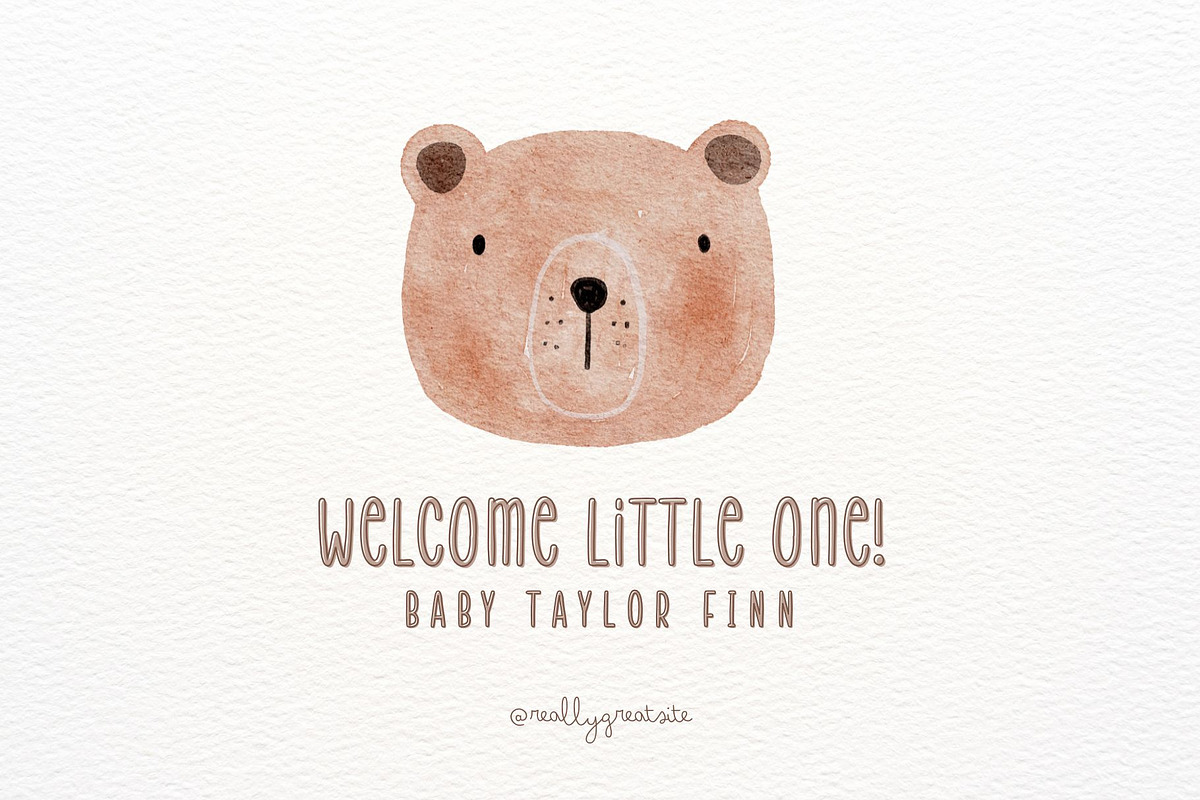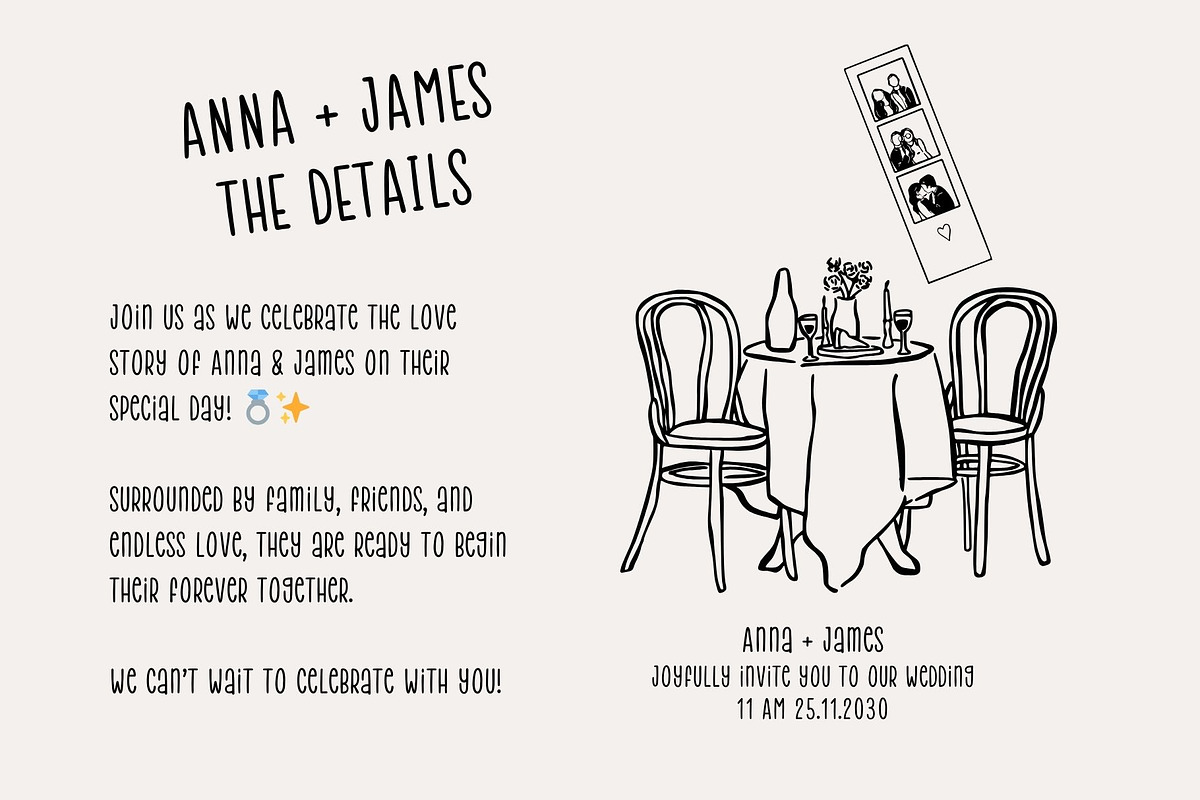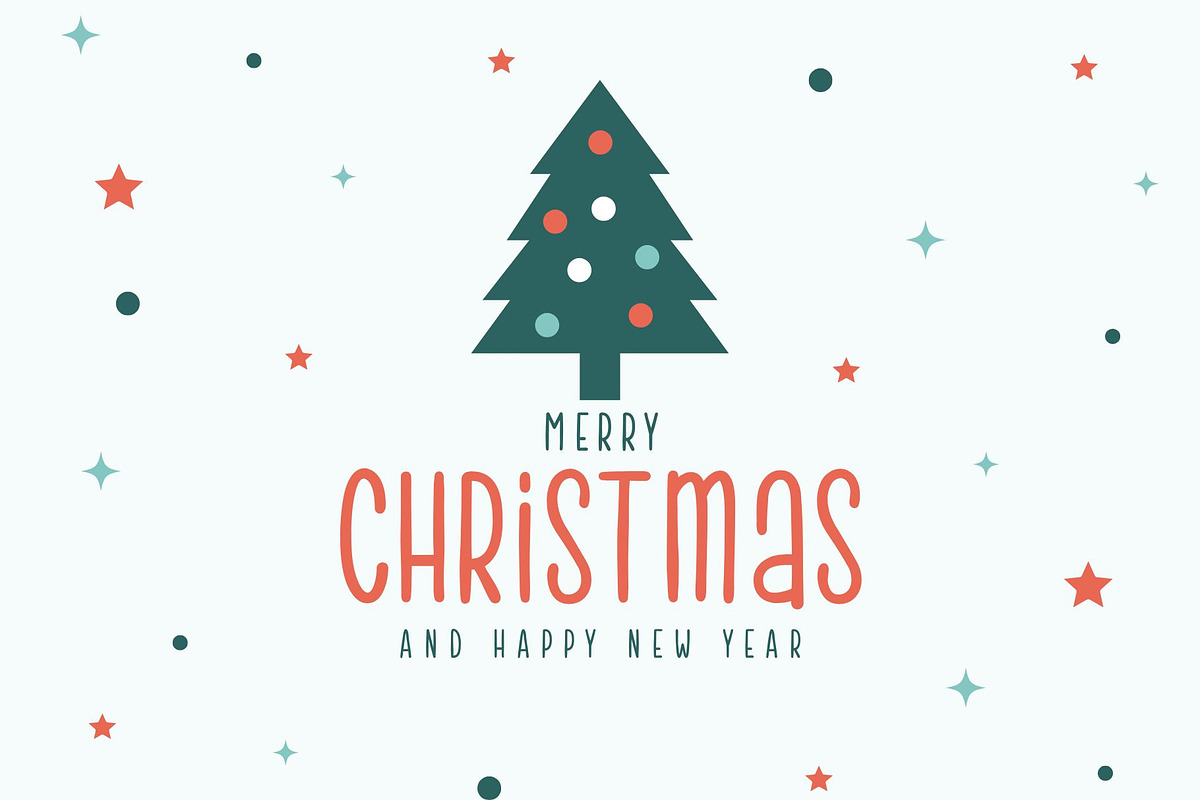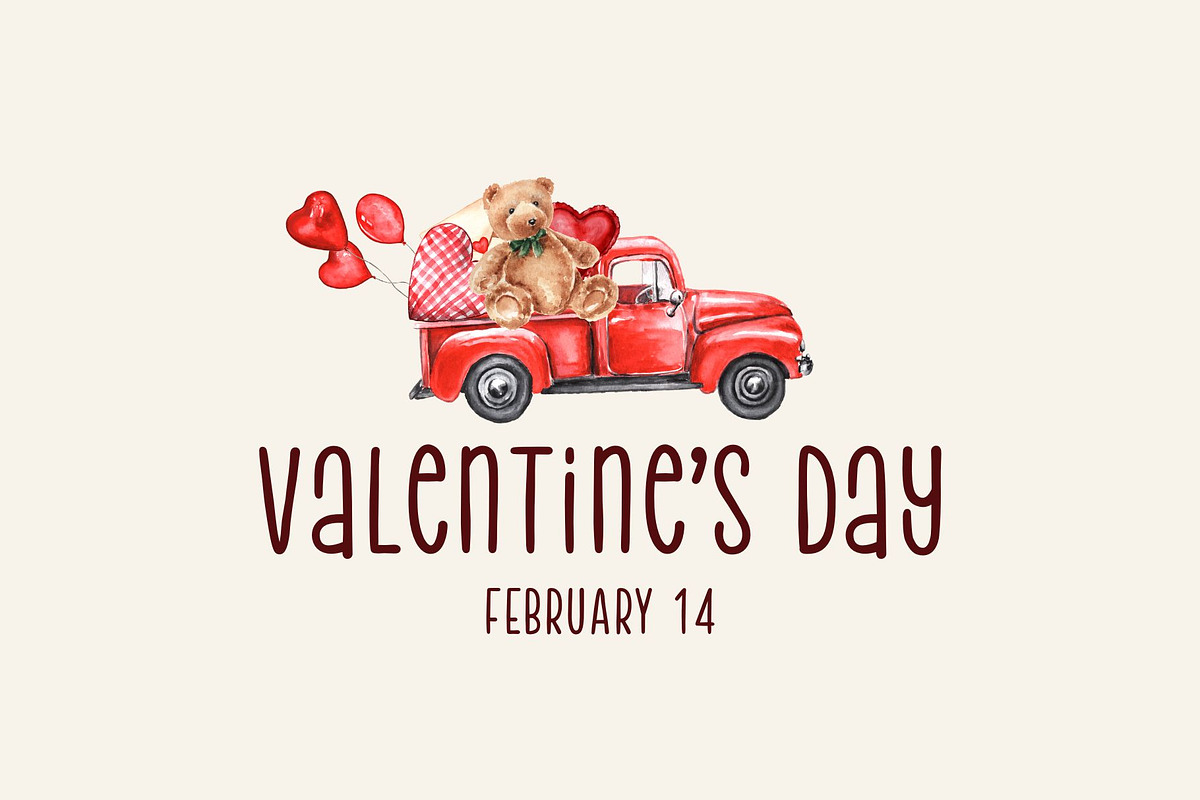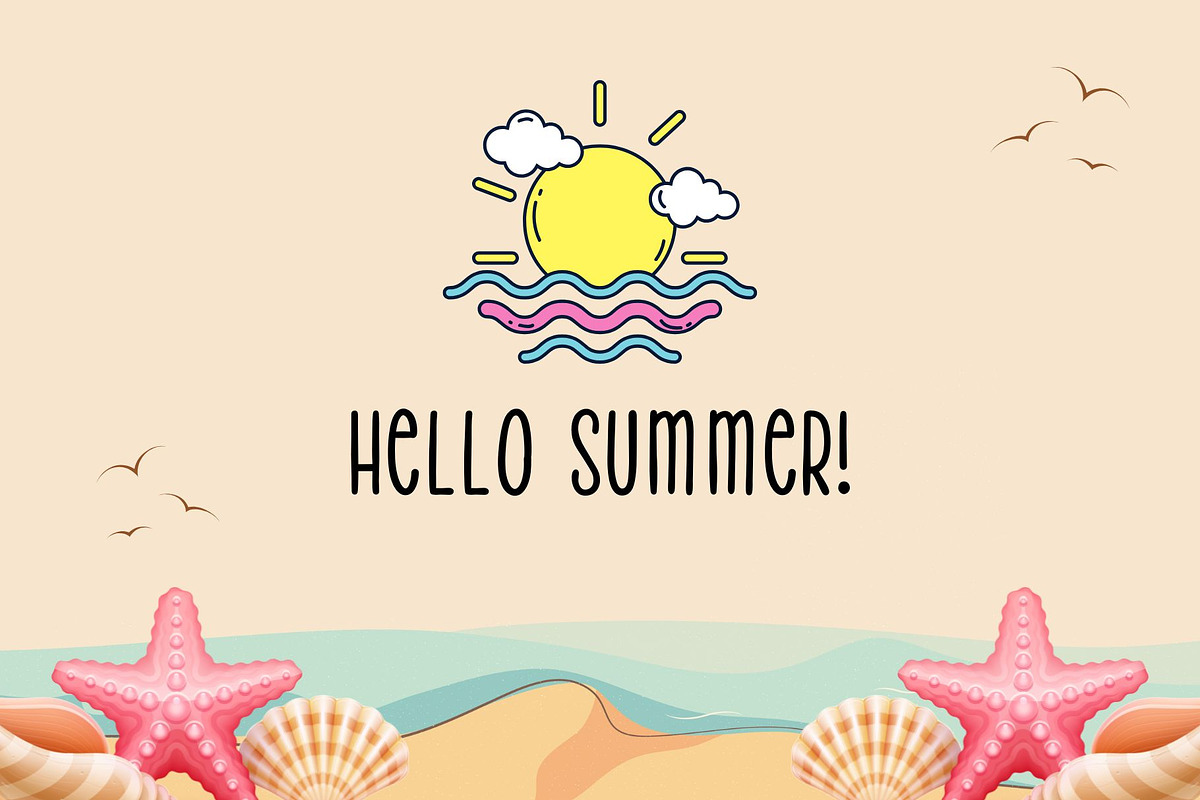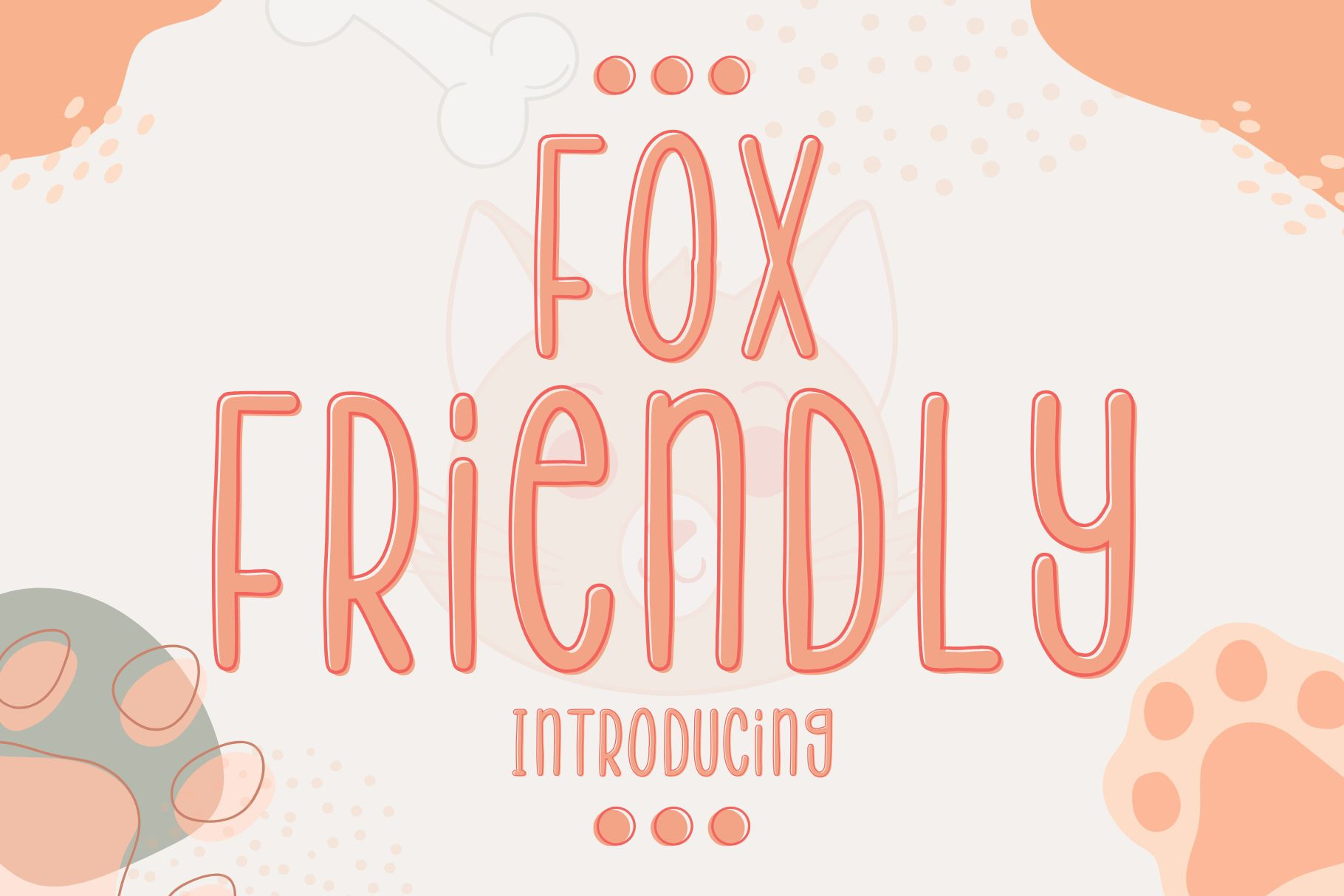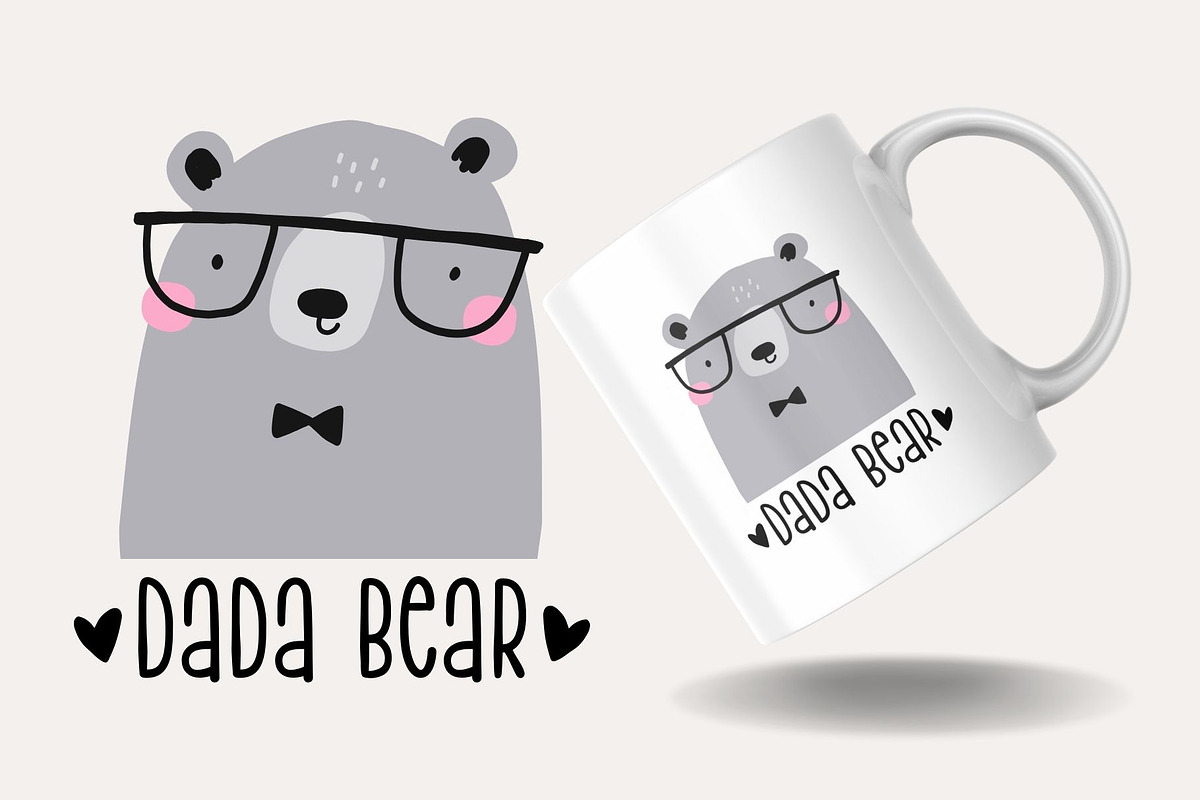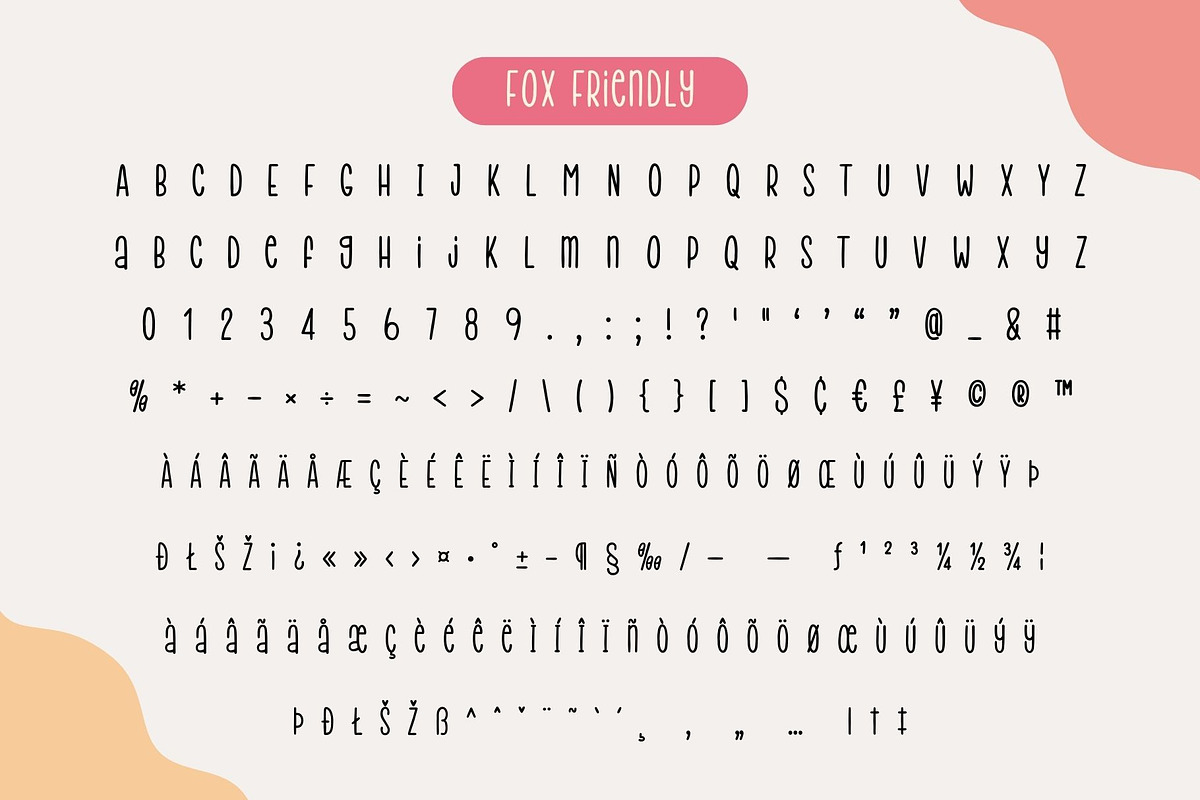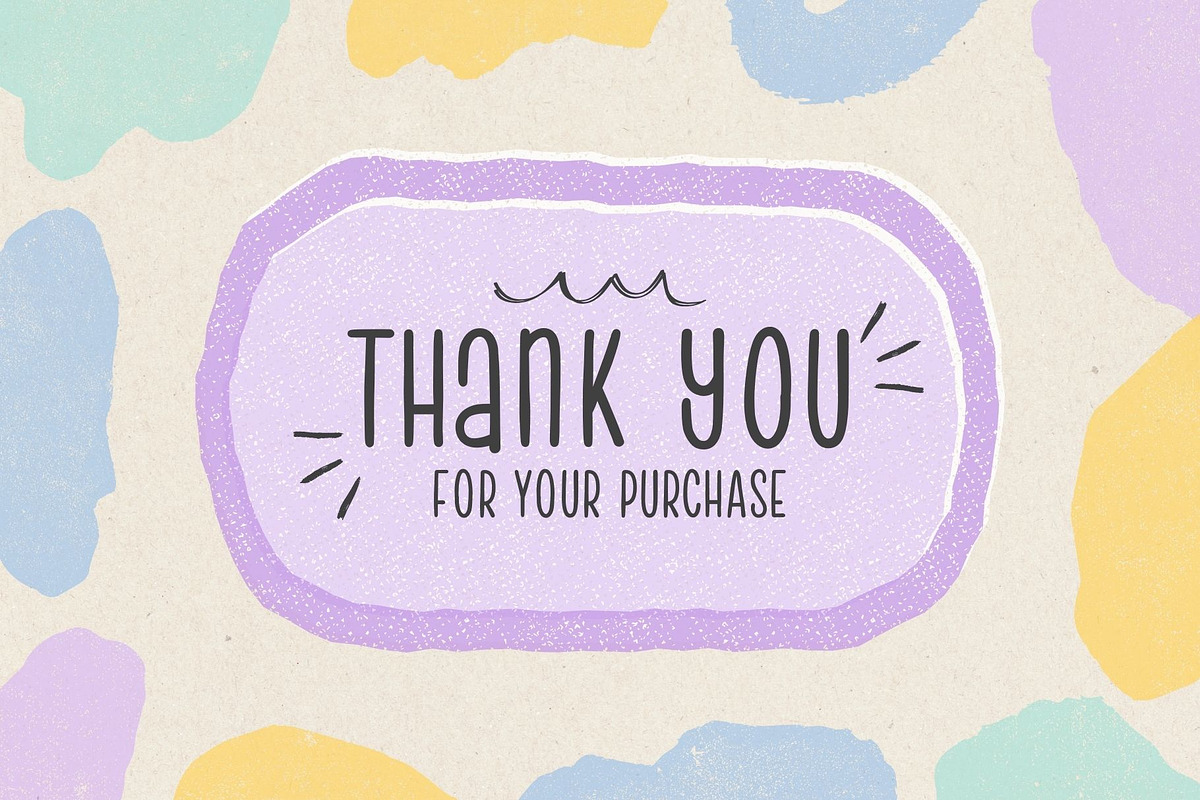
Fox Friendly Font
Fox Friendly is your versatile companion, ready to enhance a wide range of projects. Whether you’re working on blog posts, branding materials, advertisements, invitations, greeting cards, planners, photo albums, decorations, or anything else your creative heart desires, this font has you covered.